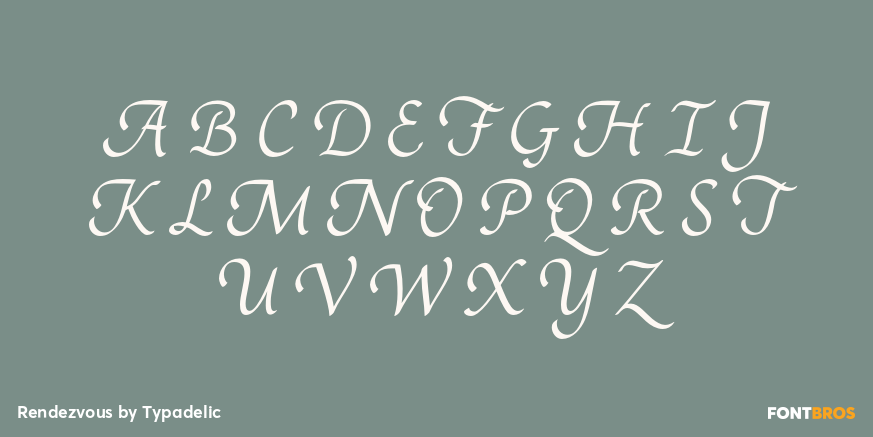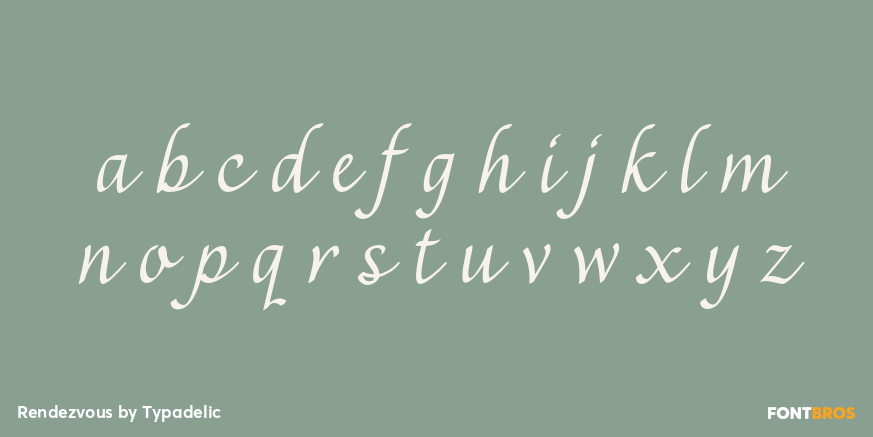
Rendezvous
Font Family by Typadelic
Elegant and refined, Rendezvous has a smooth, calligraphic appearance and can be used in a variety of design settings.